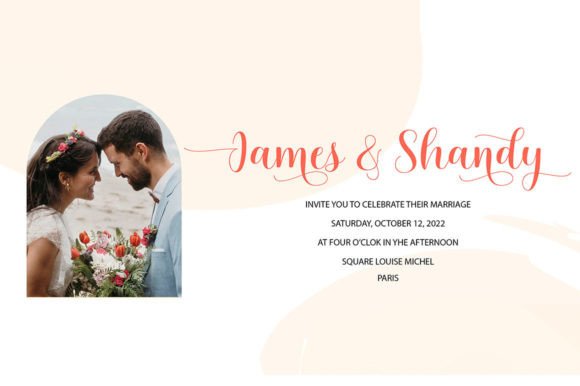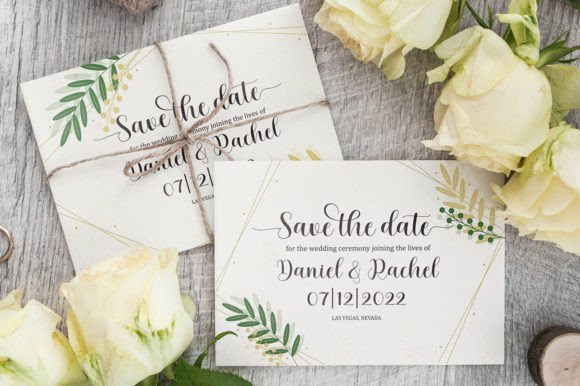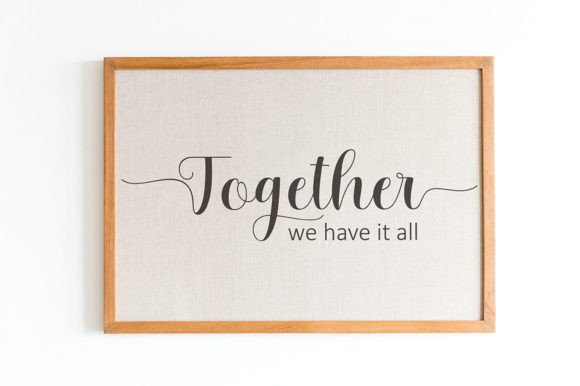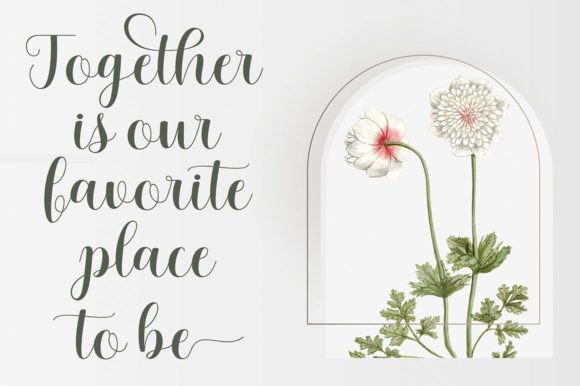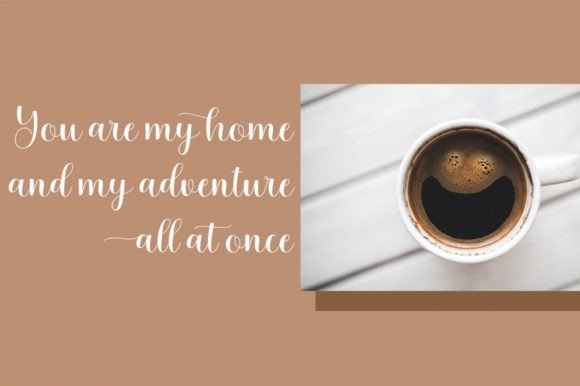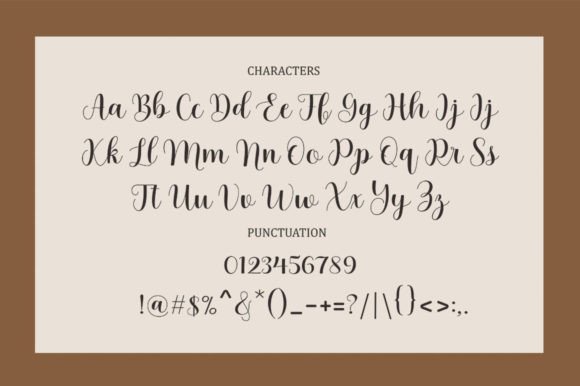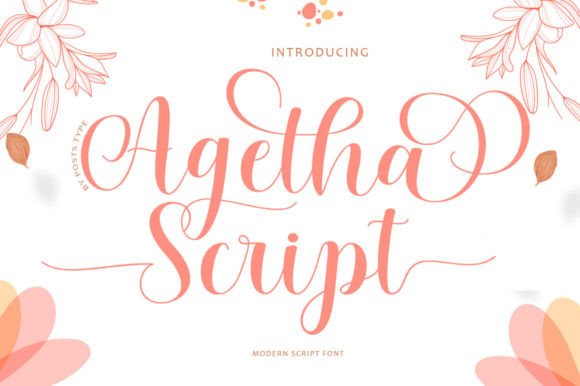
Agetha Script Font: Elevate Your Designs with Elegance and Sophistication
In the world of typography, script fonts hold a special place for their elegance, fluidity, and the personal touch they bring to any design project. Among the myriad of script fonts available, Agetha Script stands out as a dazzling and versatile choice for designers and crafters alike. This article delves into the features, benefits, and potential applications of Agetha Script, highlighting why it should be a valuable addition to your font library.
The Distinctive Charm of Agetha Script
Agetha Script is meticulously crafted with a keen eye for detail, offering a neat and highly detailed appearance that can elevate any creative project. Its elegant strokes and beautiful swashes make it an ideal choice for a wide range of design needs, from luxury branding and wedding invitations to creative writing and digital content creation. The font’s sophisticated look can add a touch of class and refinement to your designs, setting them apart from the ordinary.
One of the significant advantages of Agetha Script is its PUA (Private Use Area) encoding. This feature allows users to access all glyphs and swashes easily, providing the flexibility needed to customize and enhance their designs. With PUA encoding, designers can explore a vast range of typographic variations without the hassle, making the creative process more efficient and enjoyable. This accessibility is particularly beneficial for projects that require a high level of customization and personalization.
Versatility Across Design Projects
The versatility of Agetha Script is one of its most compelling attributes. Regardless of the topic or theme of your project, this font can adapt and complement it beautifully. Here are a few examples of how Agetha Script can be utilized across different design projects:
• Branding and Logo Design: The elegant and sophisticated nature of Agetha Script makes it perfect for luxury brands, boutiques, and service providers looking to establish a refined and upscale image.
• Wedding and Event Invitations: The font’s beautiful swashes and classic look are ideal for wedding invitations, event posters, and greeting cards, adding a touch of romance and sophistication.
• Digital Content and Blogging: For bloggers and digital content creators, Agetha Script can add a professional and stylish touch to headings, titles, and quotes, enhancing the visual appeal of their content.
• Packaging and Product Design: The font’s unique charm can also be applied to product packaging, labels, and tags, making products stand out on store shelves.
Why Agetha Script Should Be in Your Font Library
Building a comprehensive font library is essential for designers and crafters who aim to produce high-quality, visually appealing work. Agetha Script offers several reasons why it should be a part of your collection:
• Elegance and Versatility: Its sophisticated look and adaptability across various projects make it a valuable asset.
• Time-Efficiency: With PUA encoding, users can quickly access and use a wide range of glyphs and swashes, saving time and effort.
• Quality and Detail: The font’s meticulous design ensures that it will enhance your projects with its high level of detail and aesthetic appeal.
Agetha Script is more than just a font; it’s a tool that can transform your designs, adding a layer of elegance and sophistication. Whether you’re a professional designer or a DIY crafter, this dazzling script font offers the versatility, detail, and ease of use that can elevate your creative projects to new heights. By incorporating Agetha Script into your font library, you’re equipping yourself with a powerful resource that can enhance any design, making it a worthwhile investment for anyone passionate about typography and design.